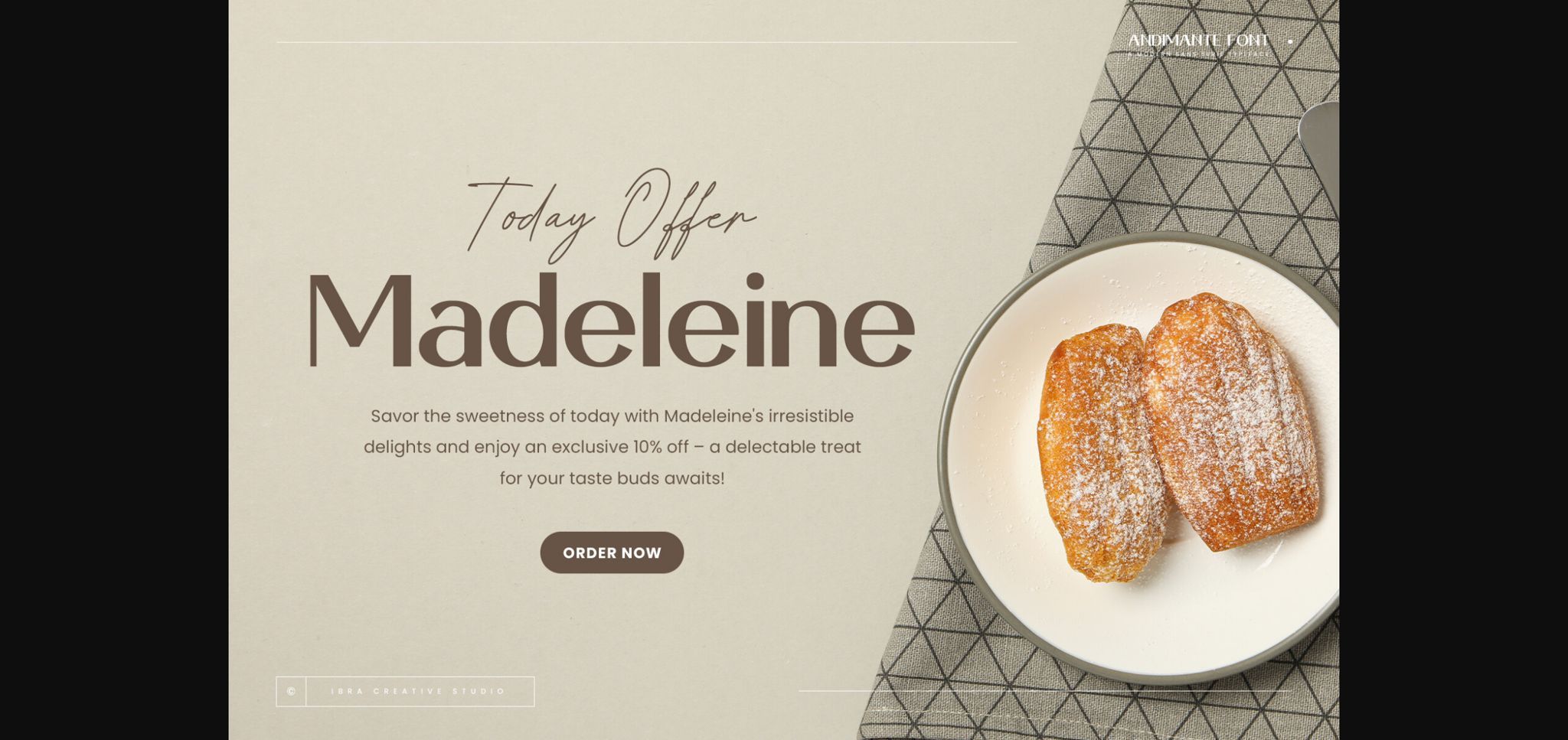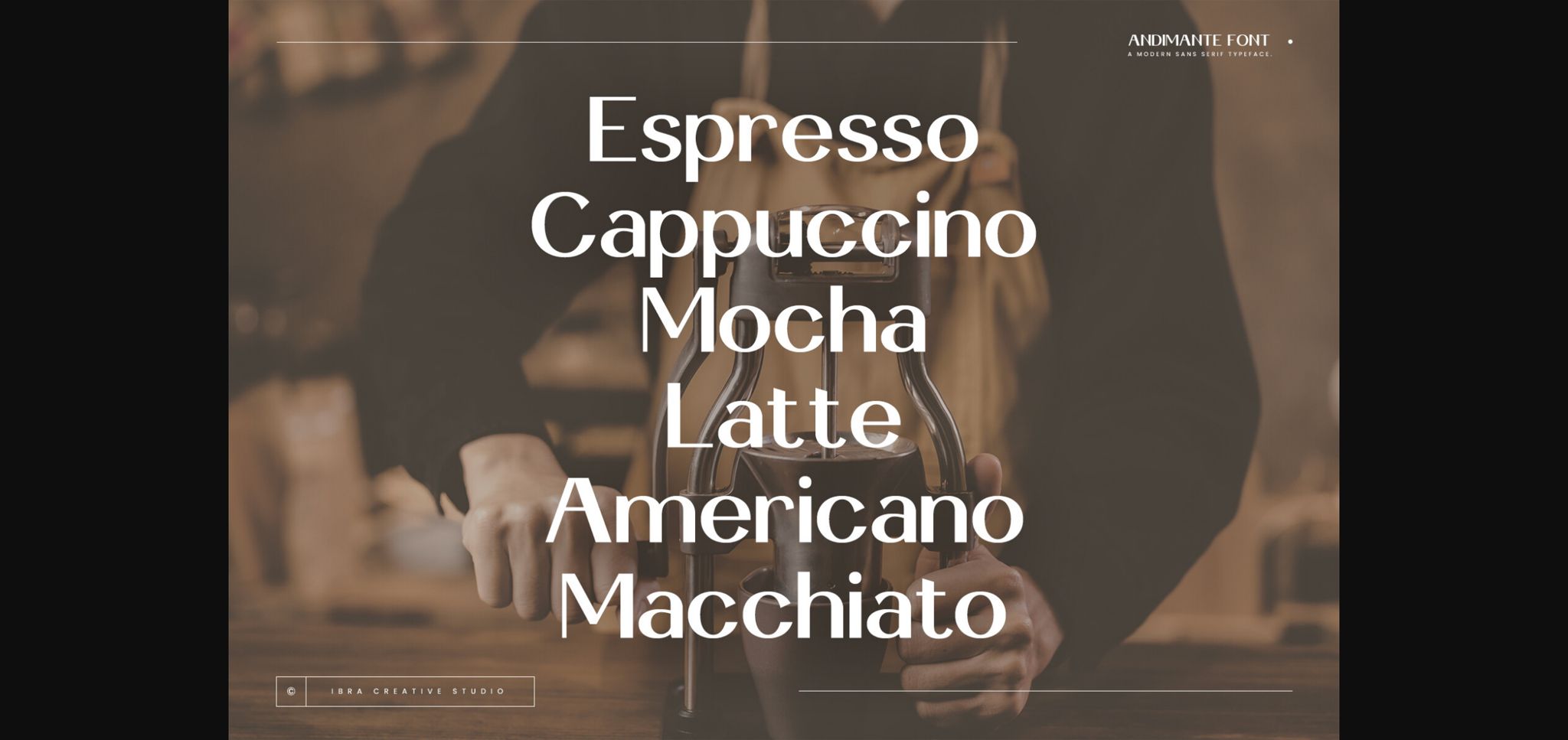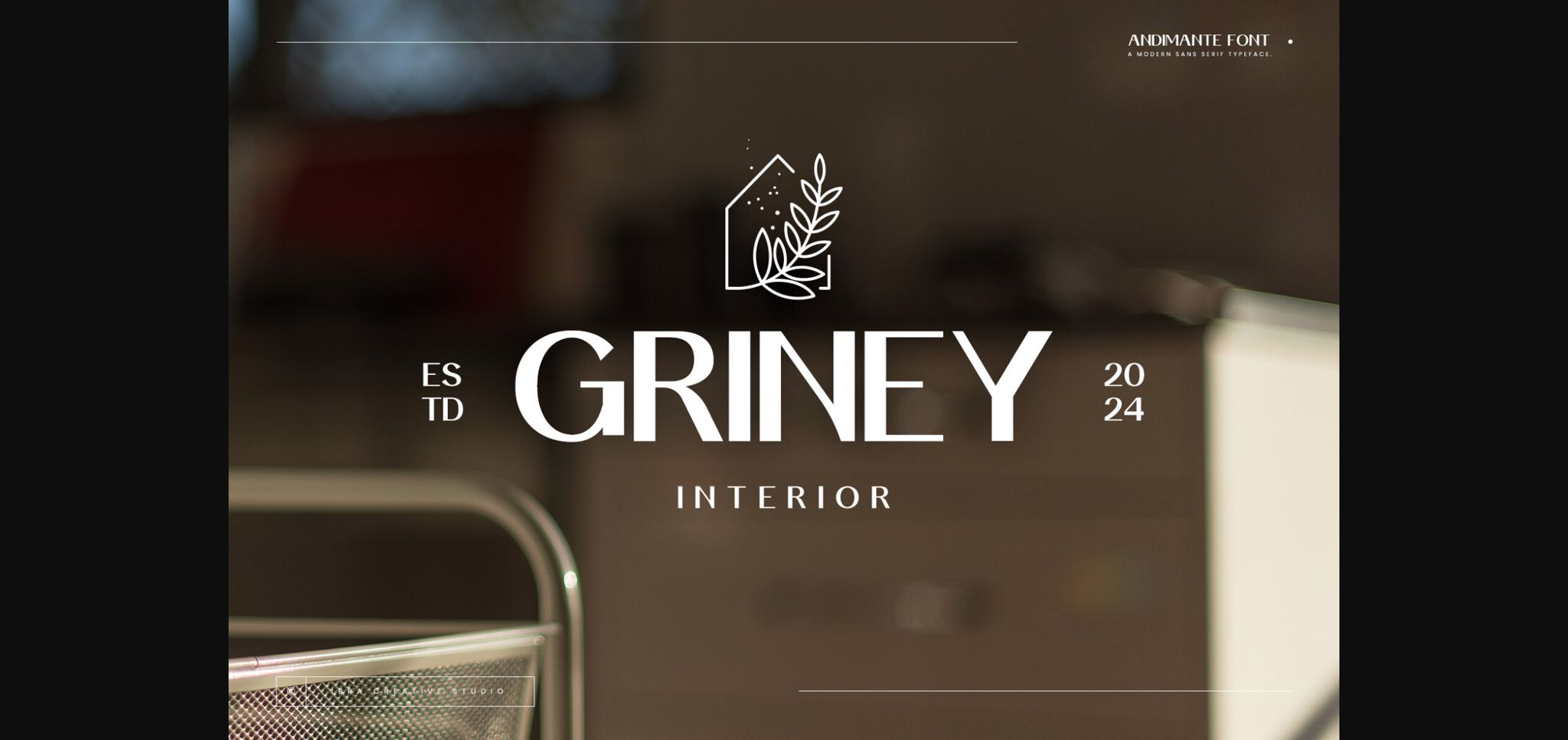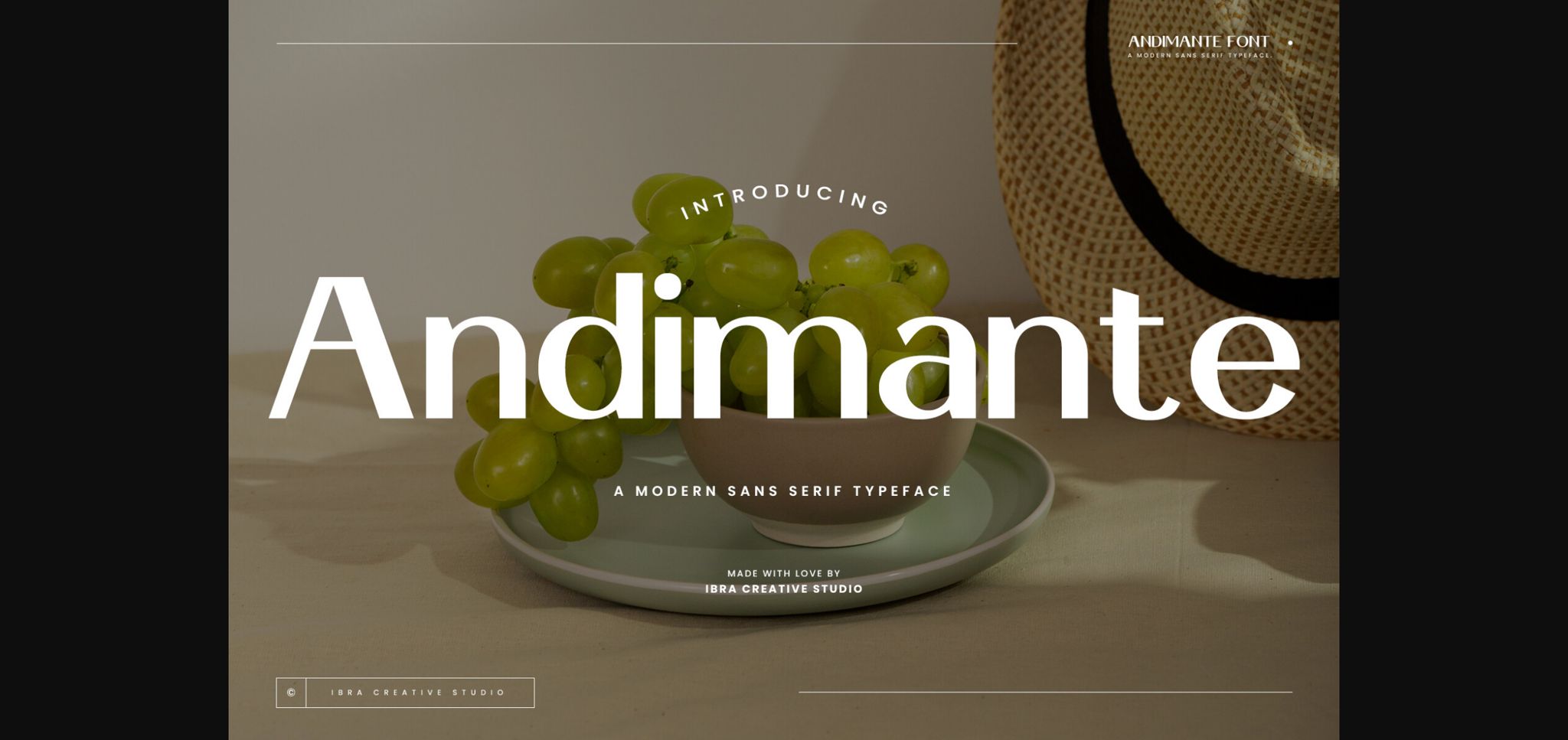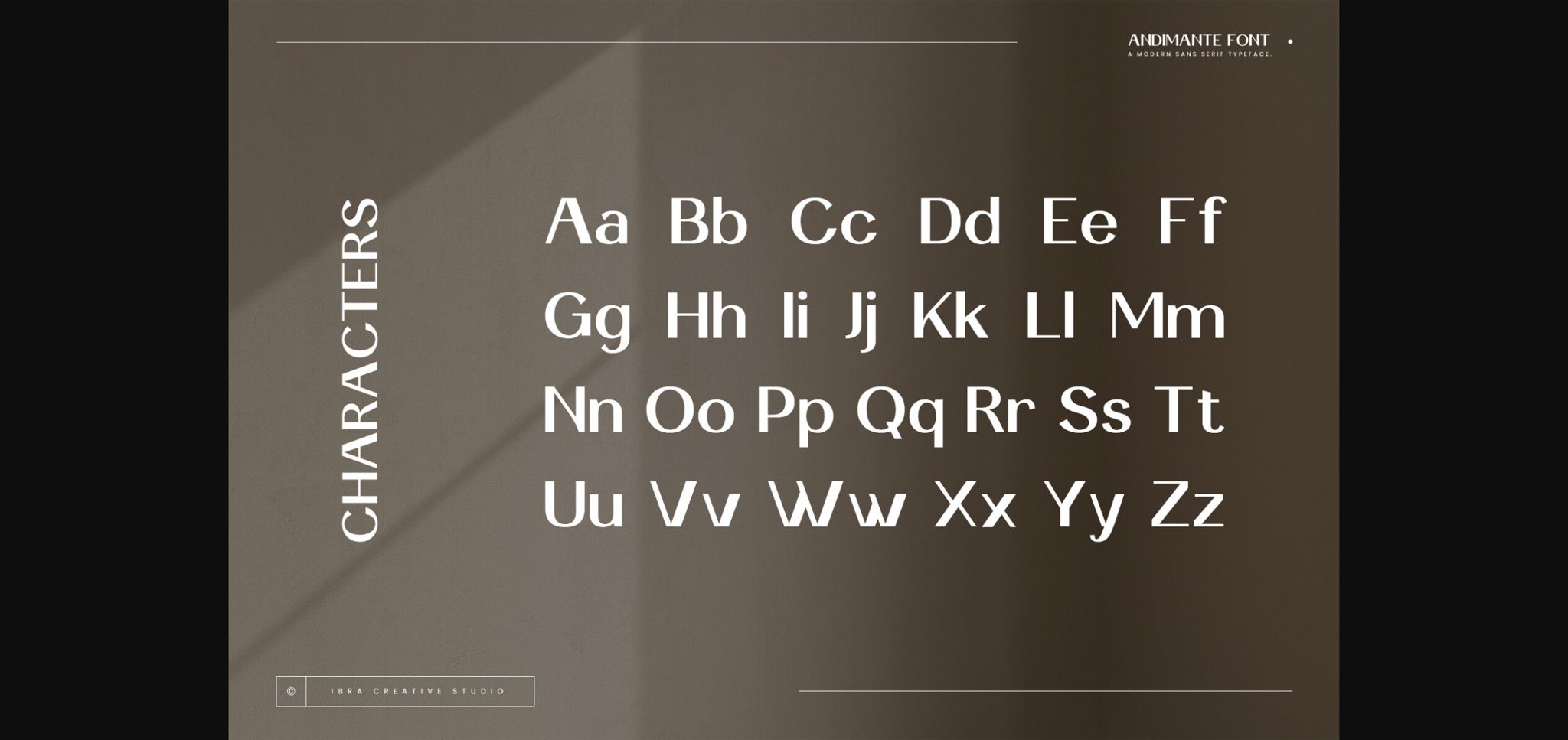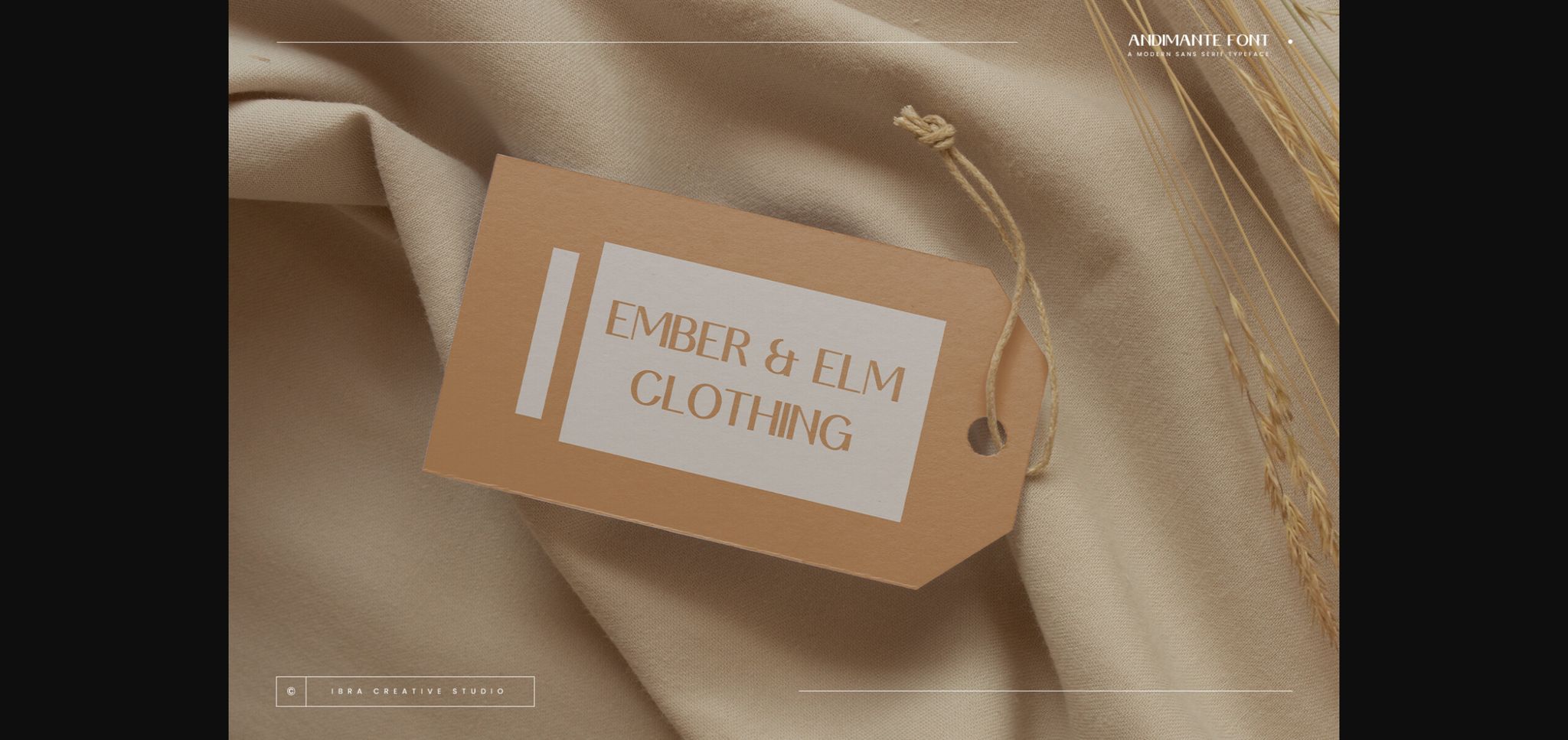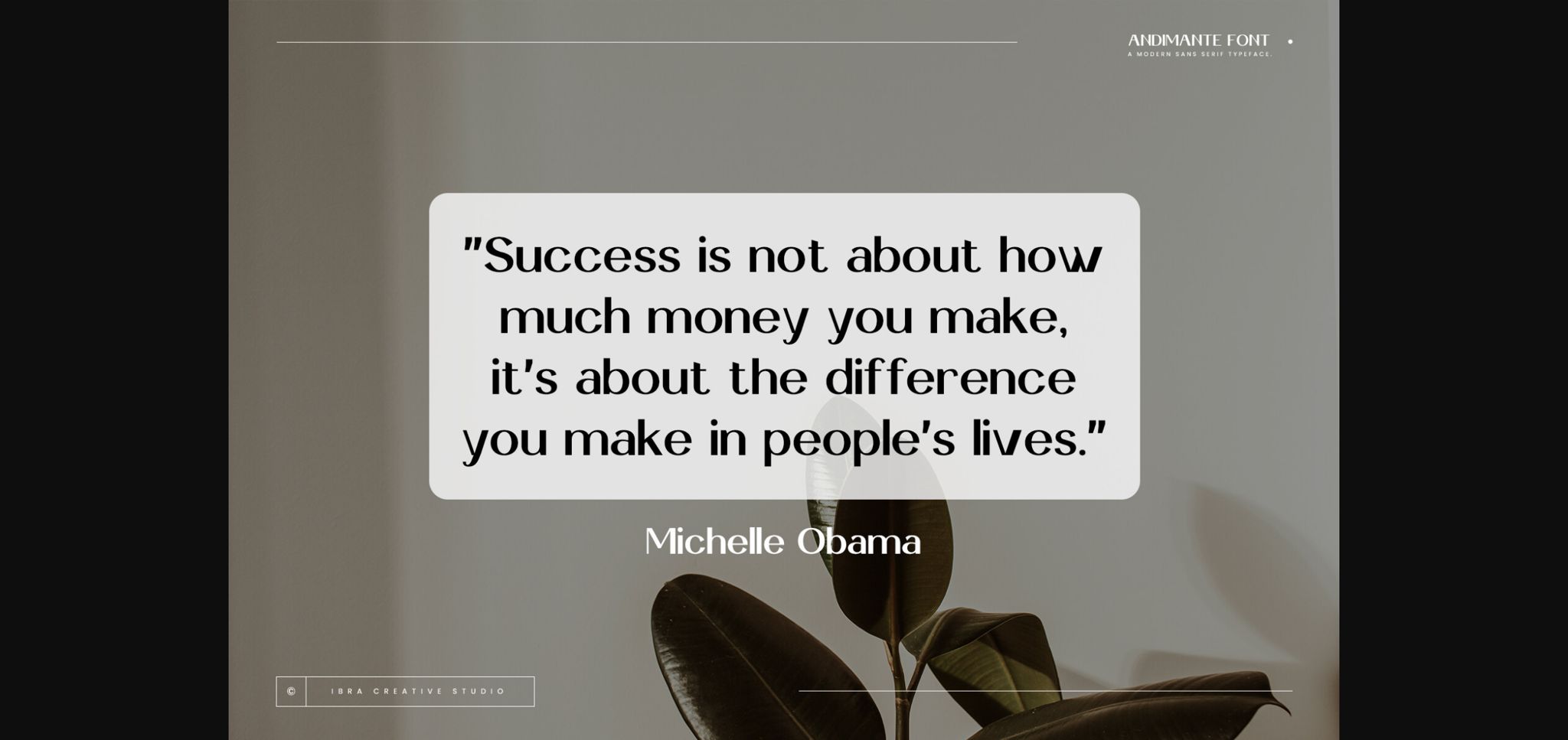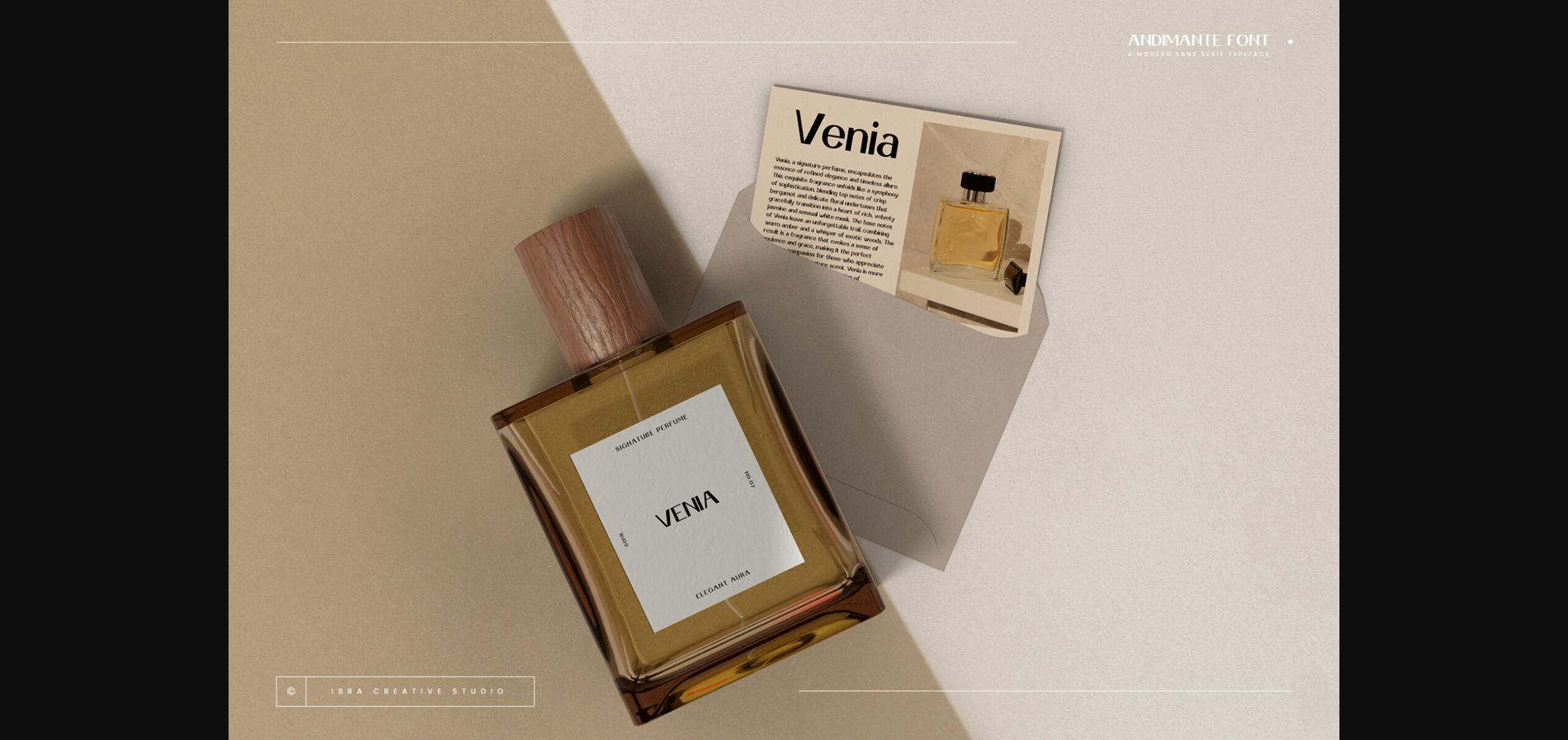
Andimante Font
About Andimante Font
Andimante, a modern sans-serif typeface, stands at the forefront of contemporary design with its clean lines, sleek geometry, and a distinct touch of sophistication. Crafted with precision, each letter exudes a sense of clarity and efficiency, making it an ideal choice for a wide range of applications, from digital interfaces to editorial design. The absence of decorative serifs lends Adimante a timeless and versatile quality, ensuring seamless integration into various design contexts.